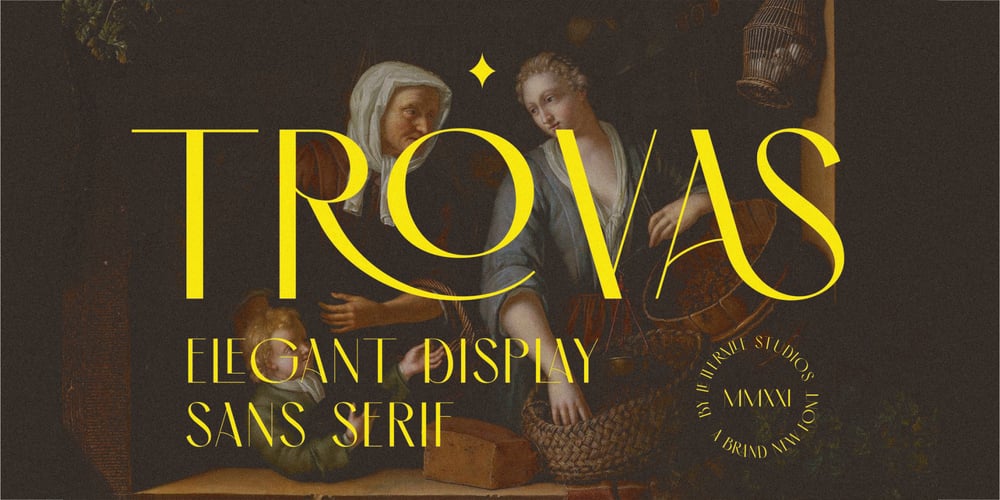
Trovas Font Family was designed by Annas Alam Yahya and published by Letteralle. Trovas contains 1 styles and family package options. Trovas is a modern sans font that takes a classic style. Designed to give the impression of elegance with a classic feel. Contains uppercase-only characters, all punctuation & numerals. There are also ligatures that will bring a unique style. Trovas is perfect for editorial projects, Logo design, Wedding, Clothing Branding, product packaging, magazine headers, or simply as a stylish text overlay to any background image.